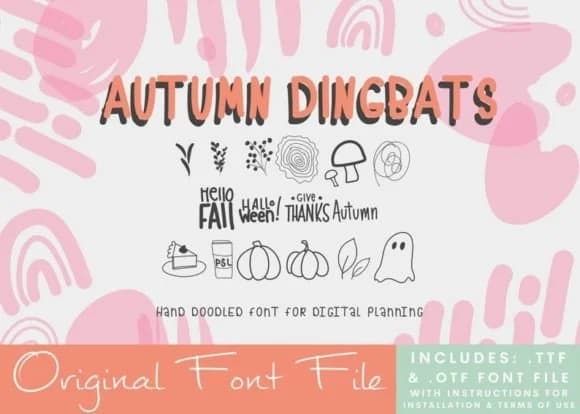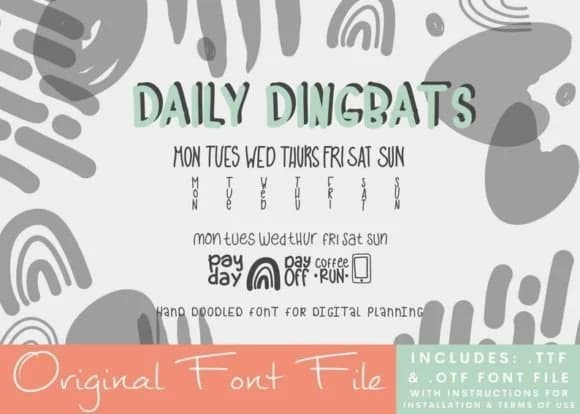
Planner Dingbats by Moe Howard is a hand-doodled icon set that brings warmth to everyday planning. These playful, approachable symbols are perfect for digital planner pages, custom bullet journal layouts, study schedules, habit tracking spreadsheets, and calendar templates. Use this collection to personalize your entire planning system, from custom digital layouts to printed journal spreads you'll actually enjoy opening every day.
The icons render cleanly across all your devices, from phone screens to tablets to desktop displays, making it simple to maintain a consistent visual style whether you're working digitally or mixing in printed elements. Layer them into your favorite planning apps, combine them with note-taking software, use them in spreadsheet-based systems, or print them as custom sticker sheets for your physical planner. The hand-drawn quality maintains legibility even at small sizes, so you can layer icons densely throughout your planning spreads.
What makes this collection special is how it balances playfulness with genuine clarity and function: your planning spreads feel warm and personal without ever looking cluttered or chaotic. The approachable aesthetic actively encourages you to actually use your planner, turning the tedious work of organization into something genuinely enjoyable. Grab Planner Dingbats from Creative Fabrica to bring this playful collection into your planning workflow.
Planner Dingbats Font
by Moe Howard